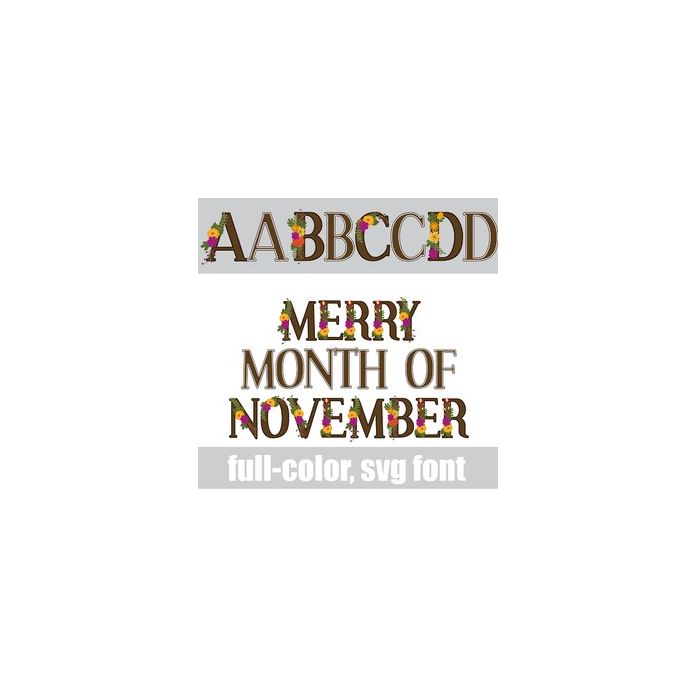
This full-color font features autumn-colored florals on a heavy serif. The lowercase is without florals. There is an alt case w/ additional colors you can access through your system or Silhouette's glyph map.